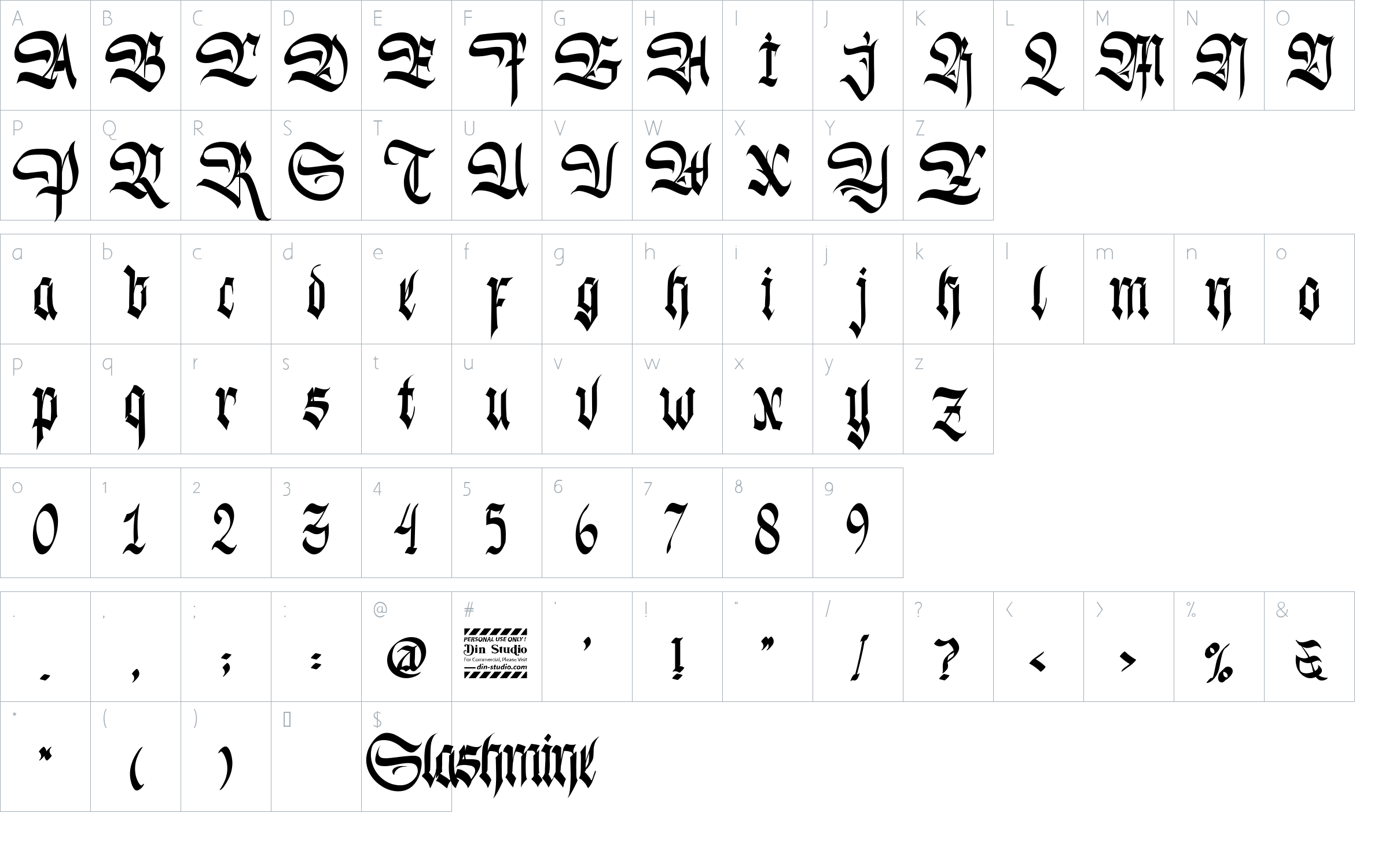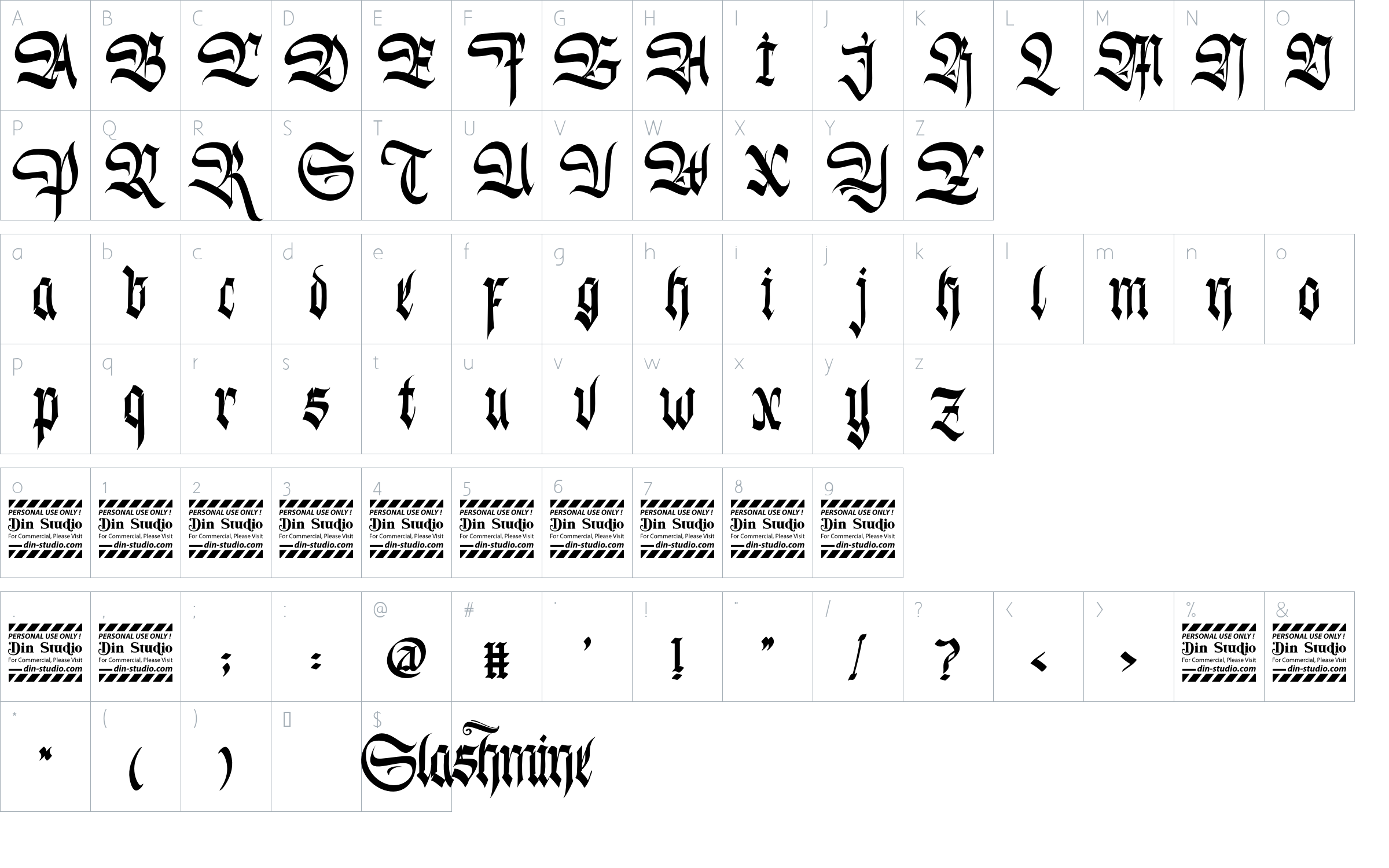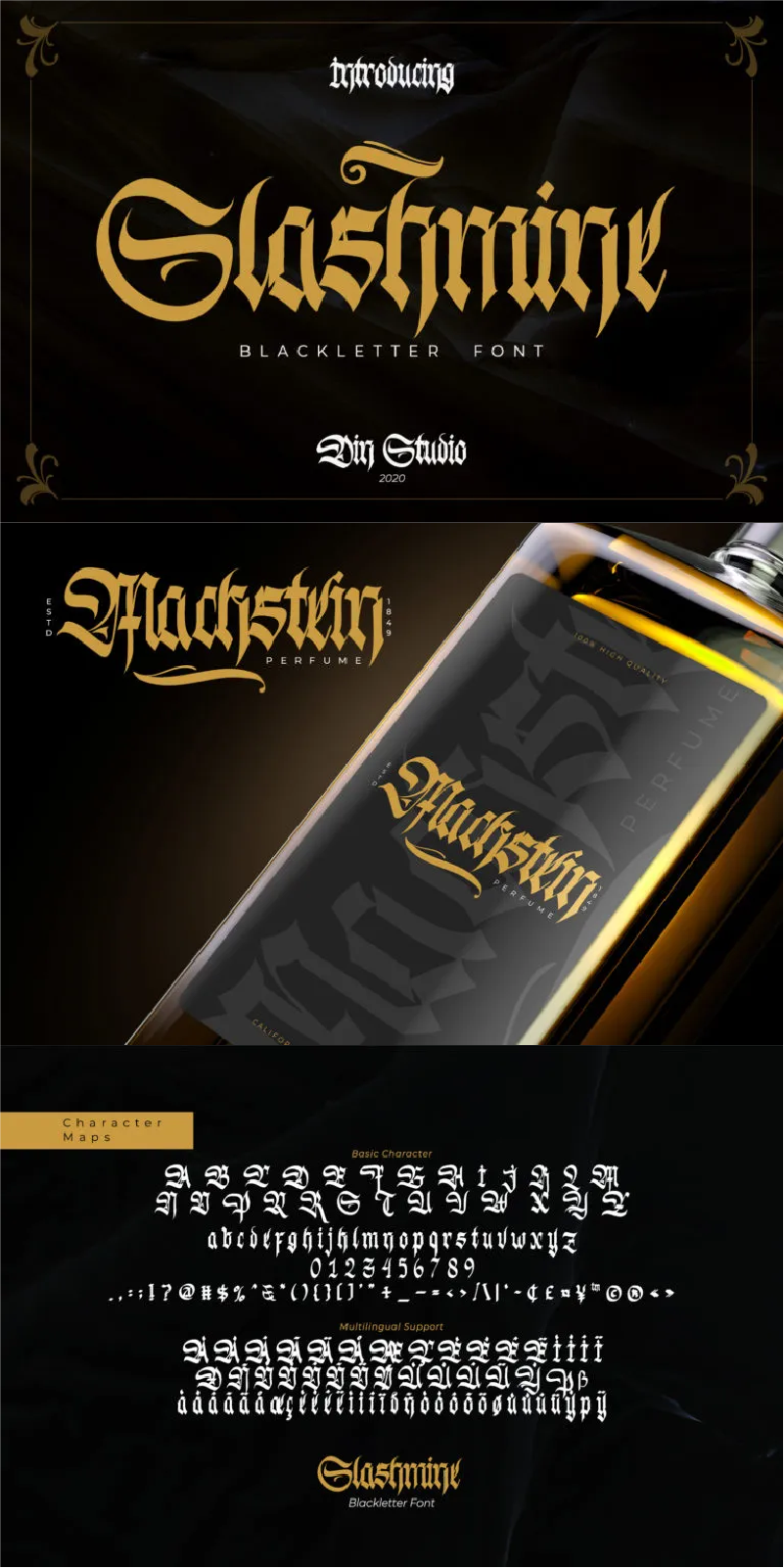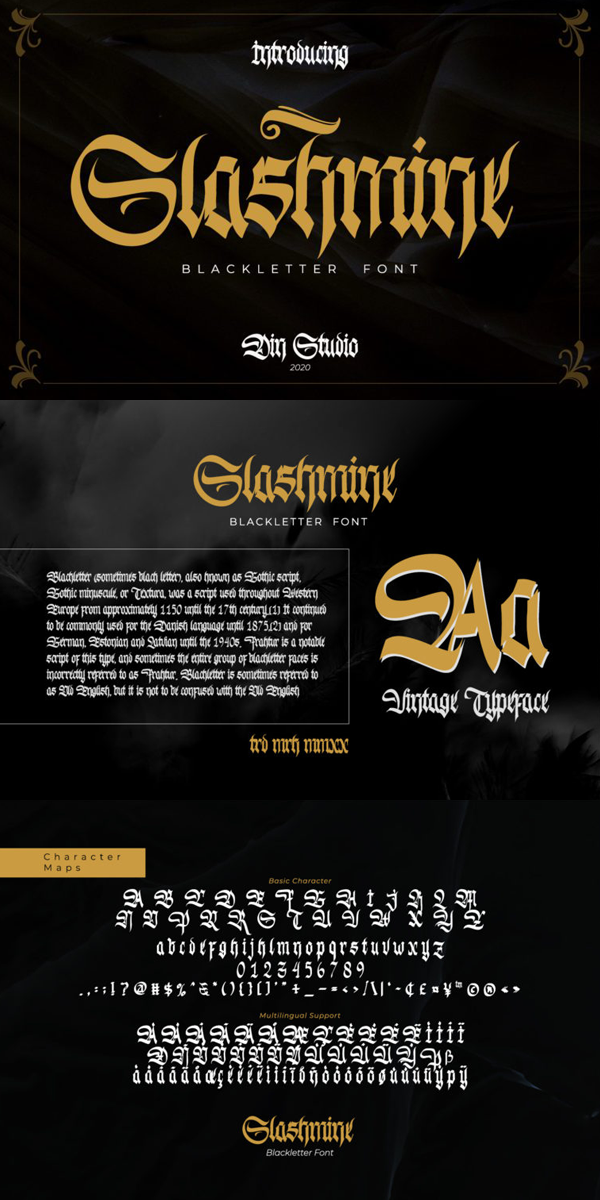
Slashmine Font
About Slashmine
Slashmine is authentic and modern blackletter font. The font is suitable for any branding project like logo, merchandising, t-shirt printing and many more. Outstanding in a wide range of contexts. See the previews above to get some inspiration on how you can use them. Happy Designing!
Featured :
– Alternates
– Accents (Multilingual characters)
– Numerals and Punctuation (OpenType Standard)